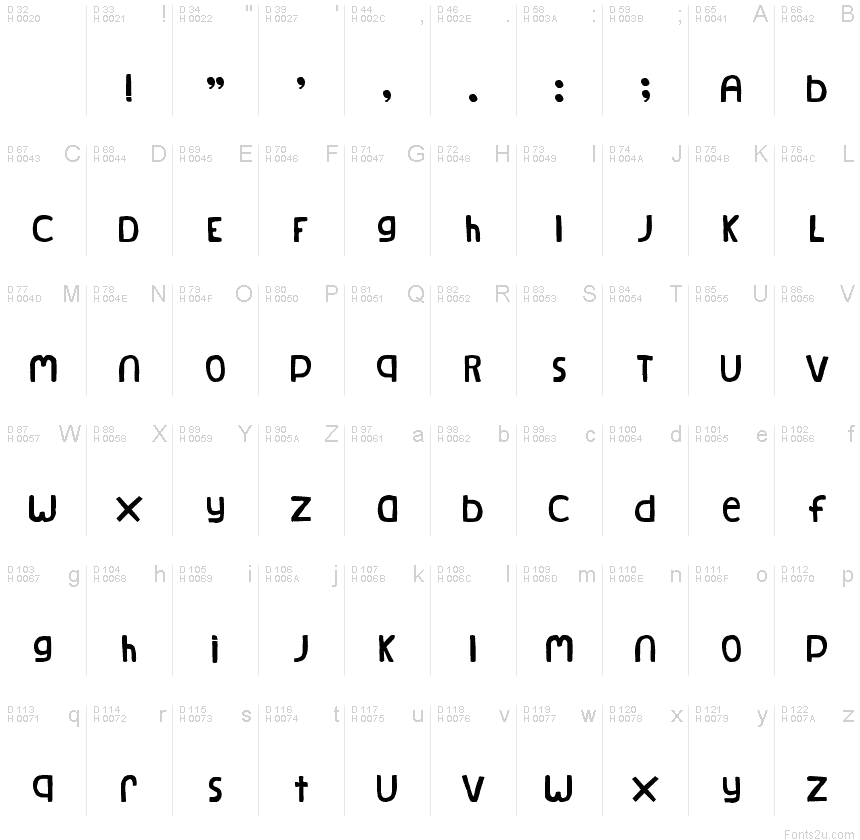
Natural Log
Natural Log by Tom Murphy 7 is a free eroded display font shaped by tall, rounded lettering and slightly uneven edges that make the forms feel worn in by use rather than distressed for effect. That soft, upright rhythm keeps the design friendly and handmade, while the roughened outline stops it from feeling neat or geometric.
It makes sense on rustic packaging, campground signs, zine titles, nature-themed posters, and casual event flyers where a little surface wear helps the lettering feel familiar. Because the erosion is mild and spread across the set, Natural Log can anchor short headlines or labels without turning them into a novelty stunt.